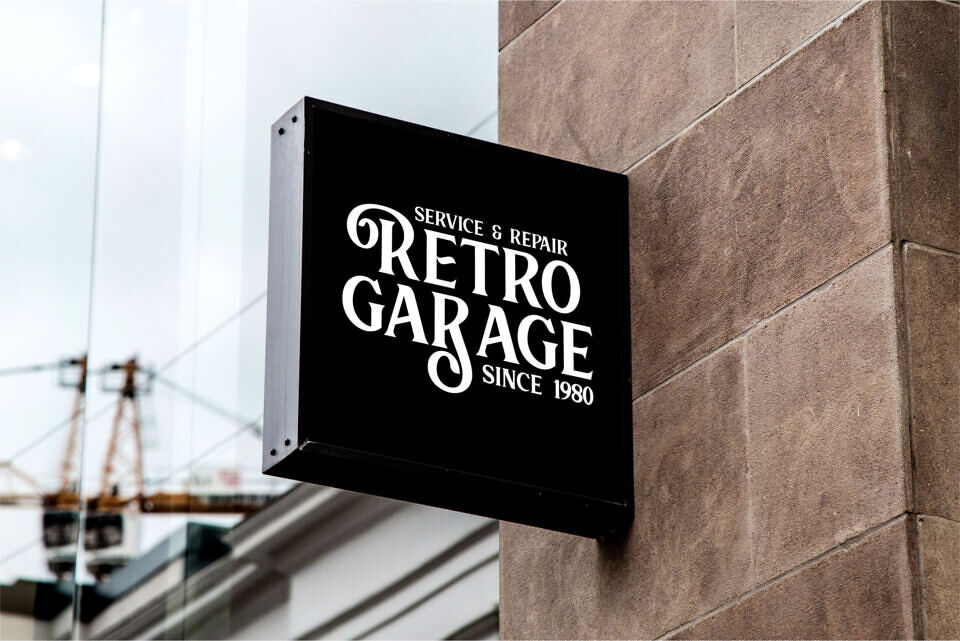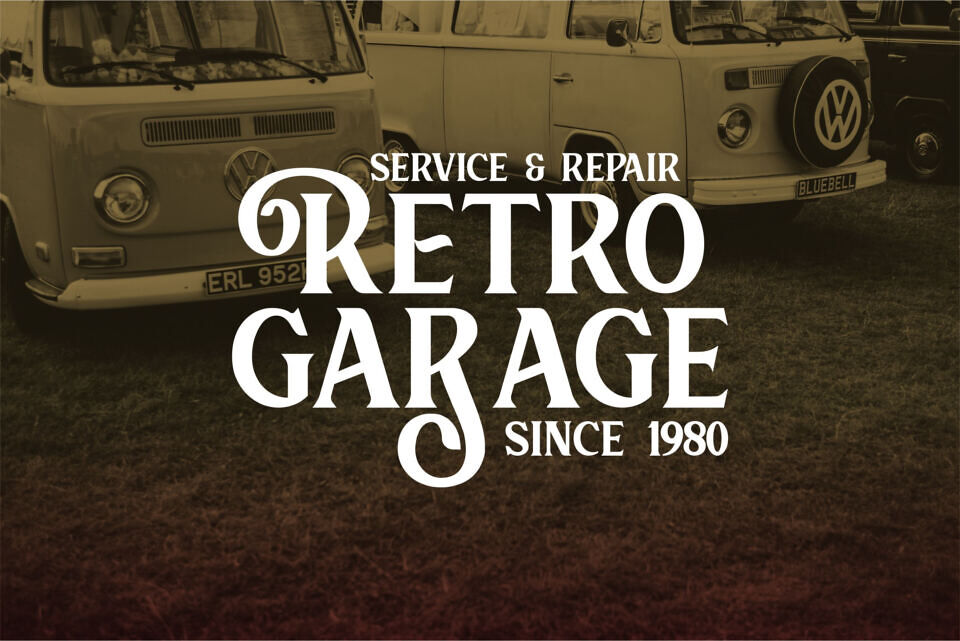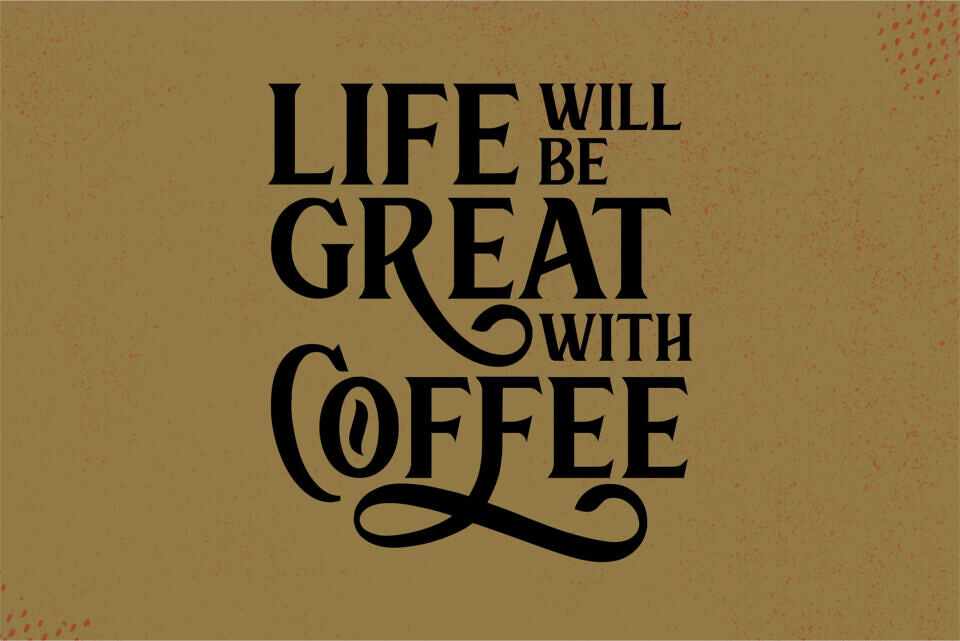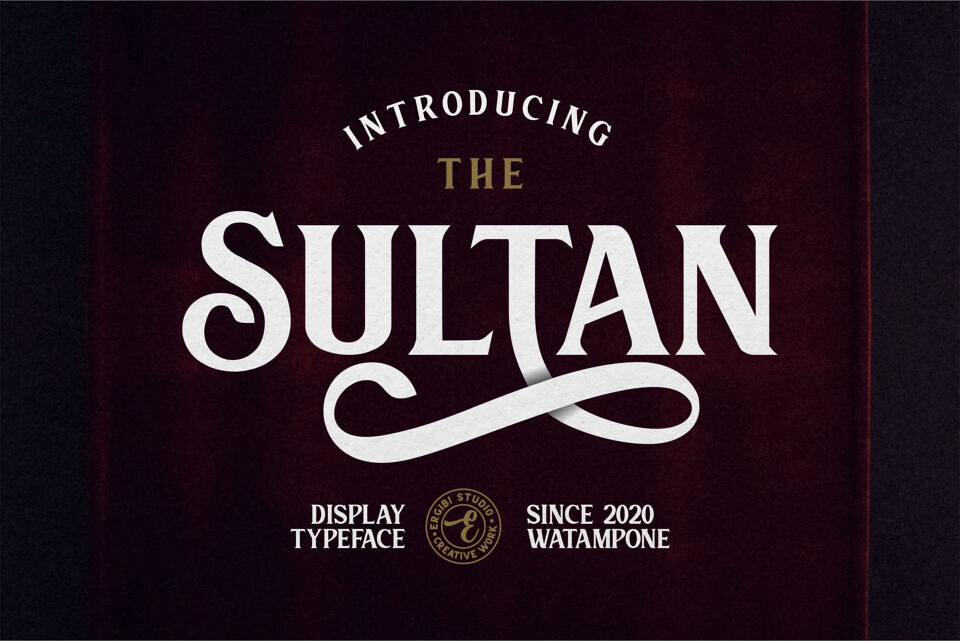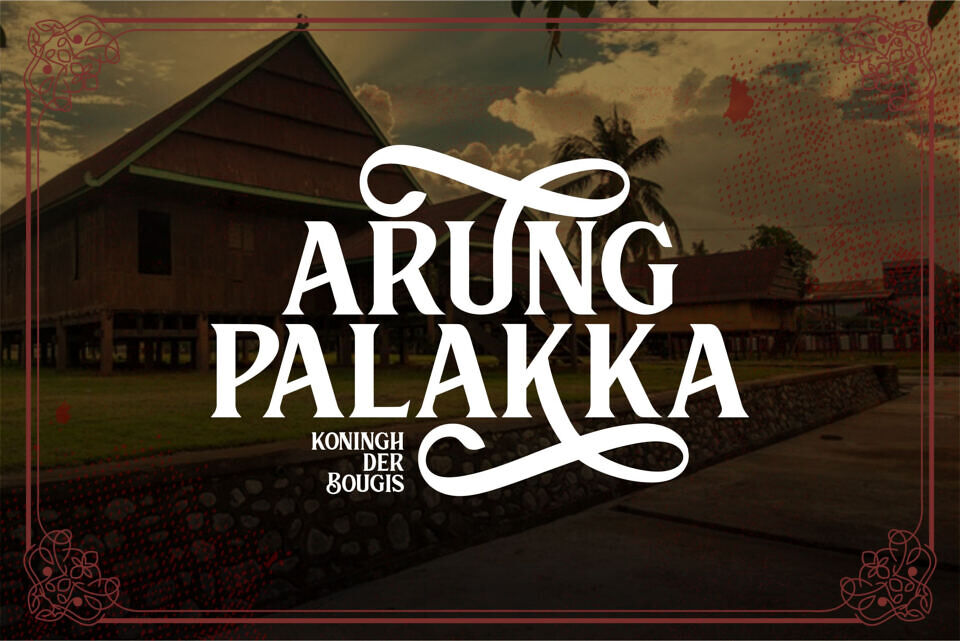
Sultan Font
Sultan is a serif typeface that blends vintage character with modern, minimalist decorative elements. It features distinctive uppercase letters along with alternate characters for added versatility.
With multilingual support, this font is ideal for logos, branding, mockups, t-shirts, and a wide range of creative projects that call for a refined vintage aesthetic.